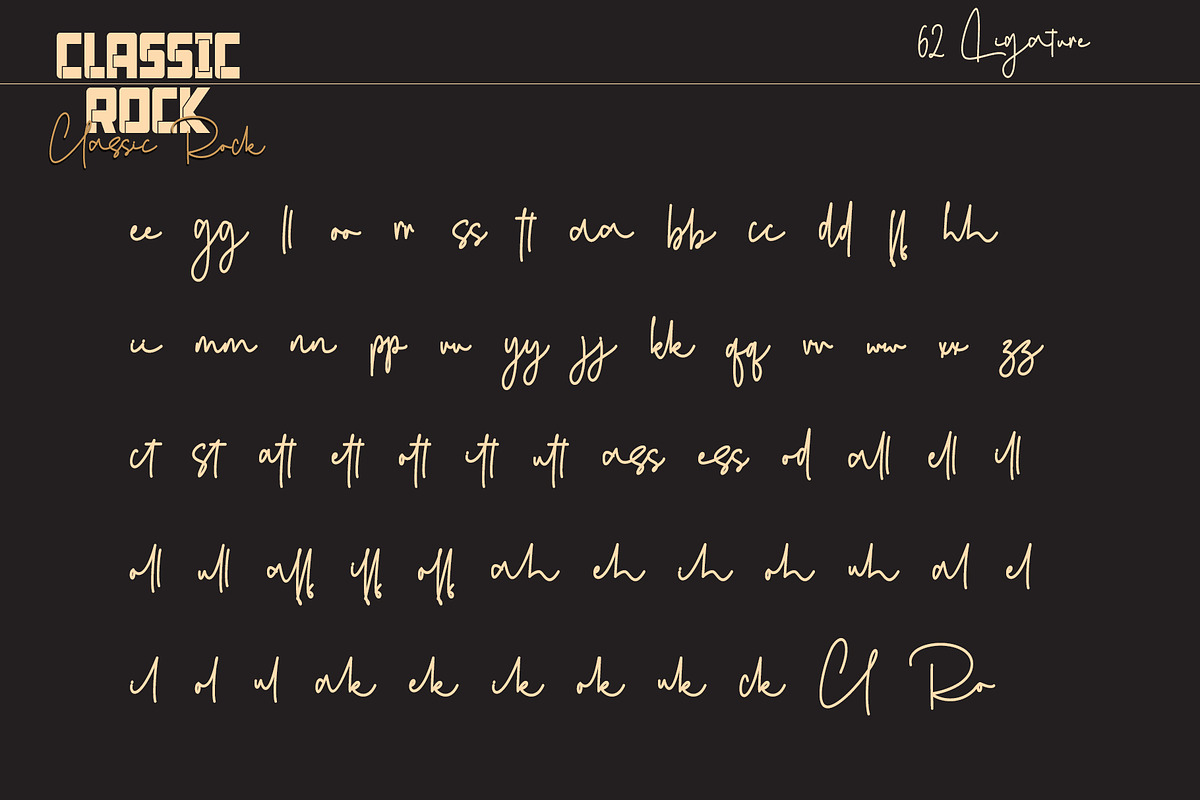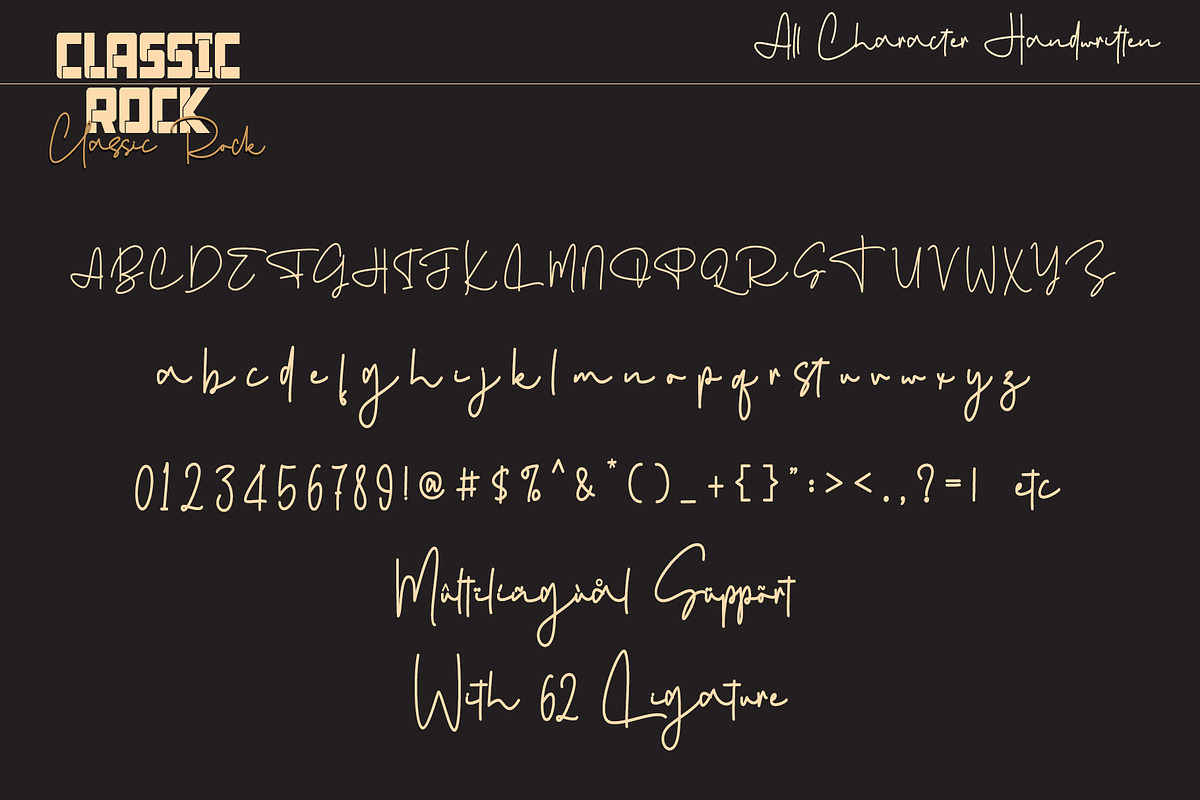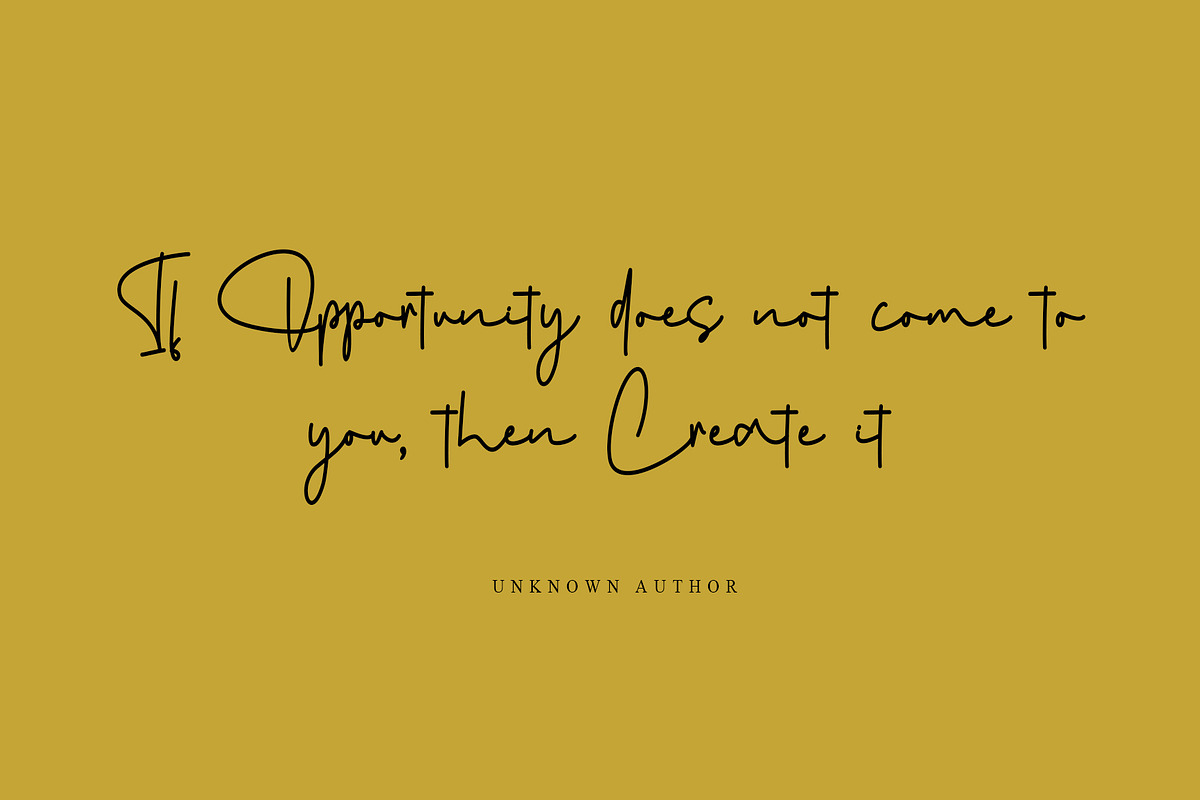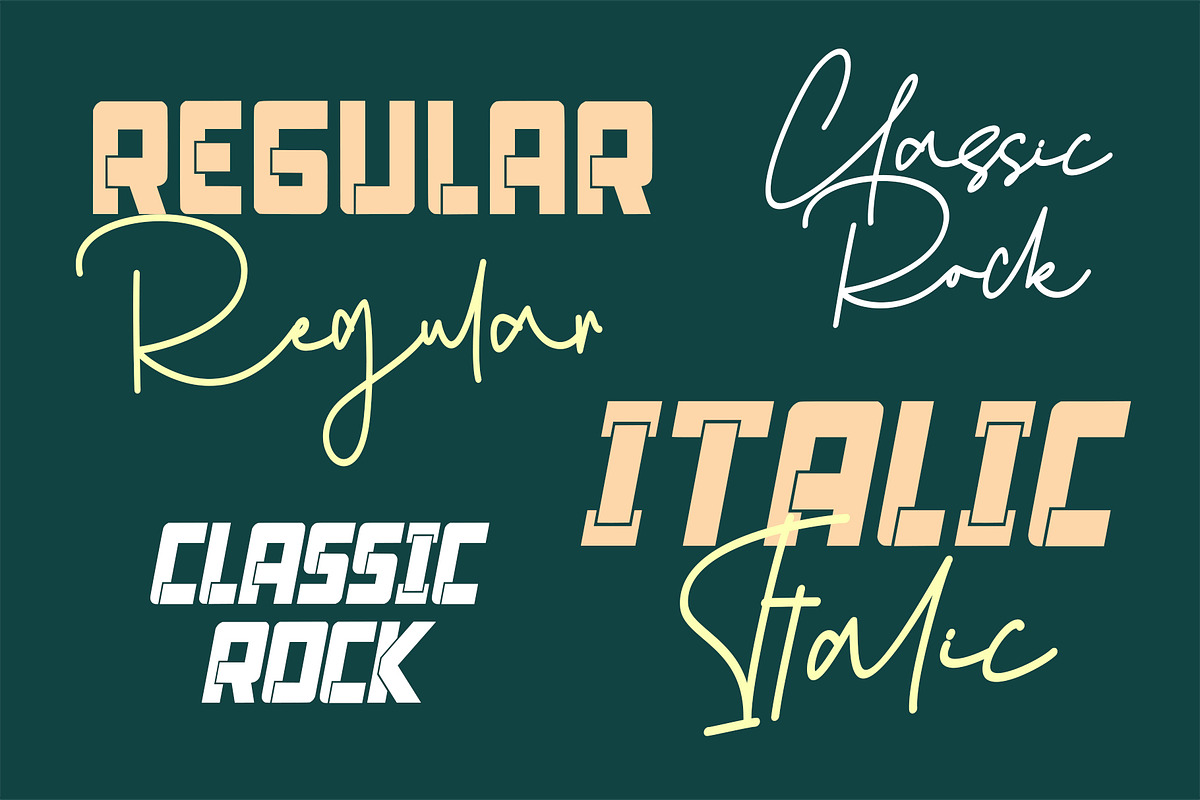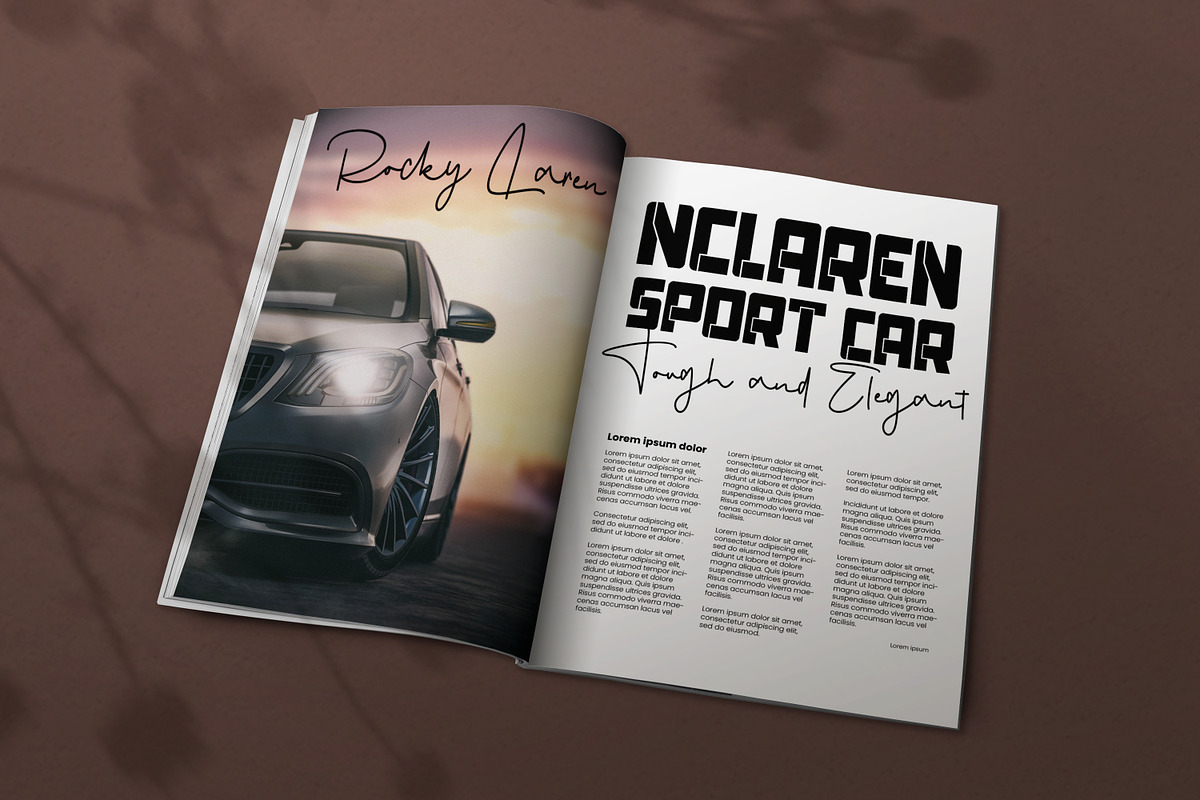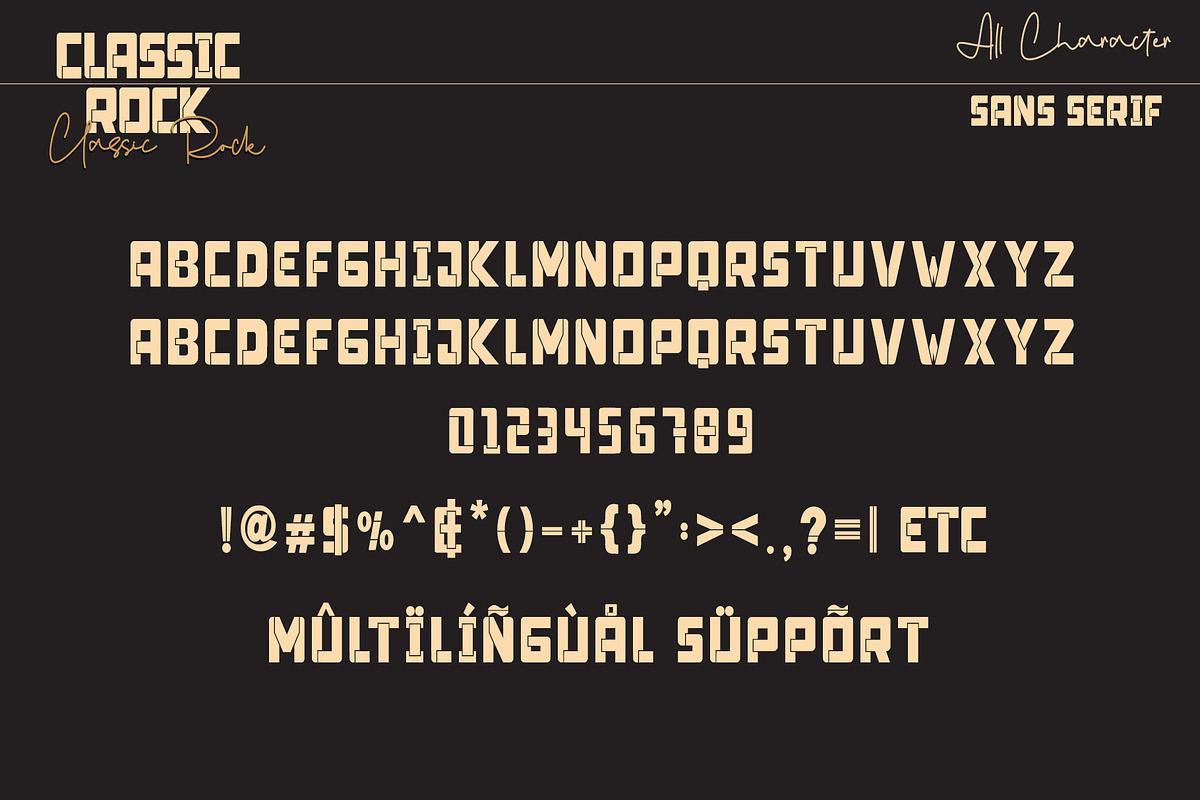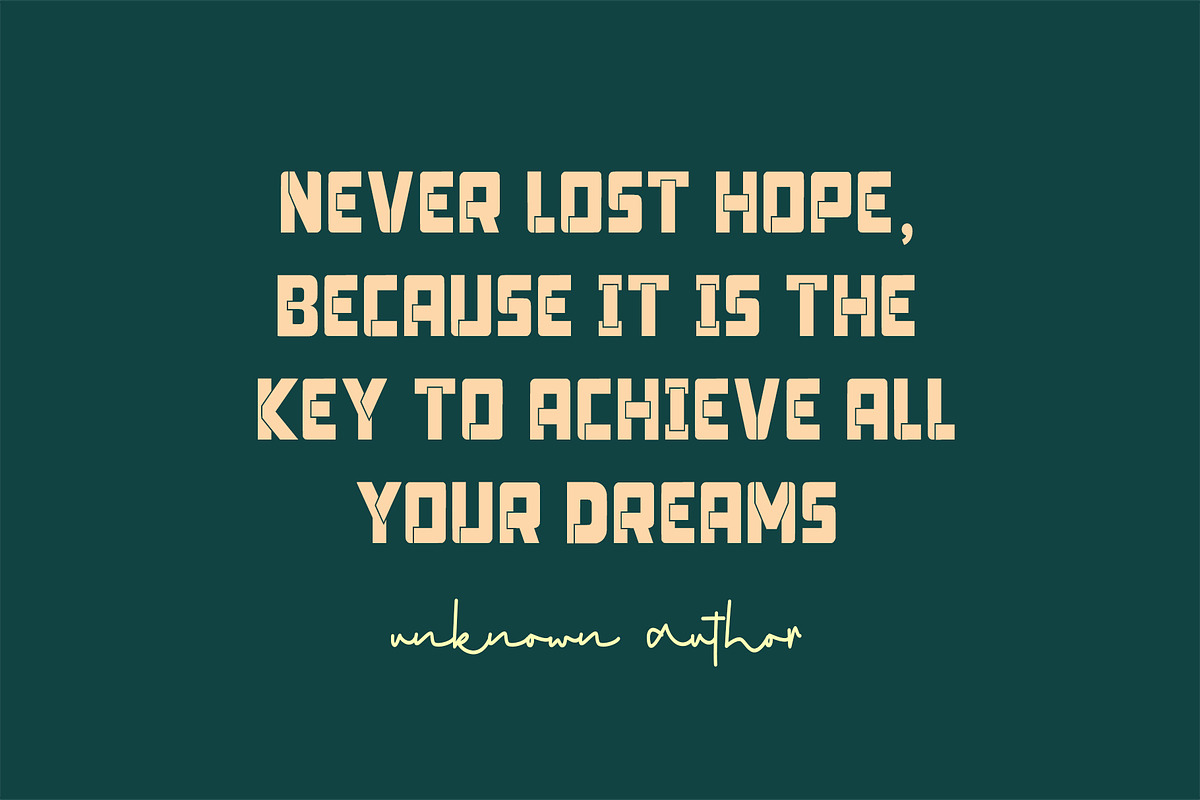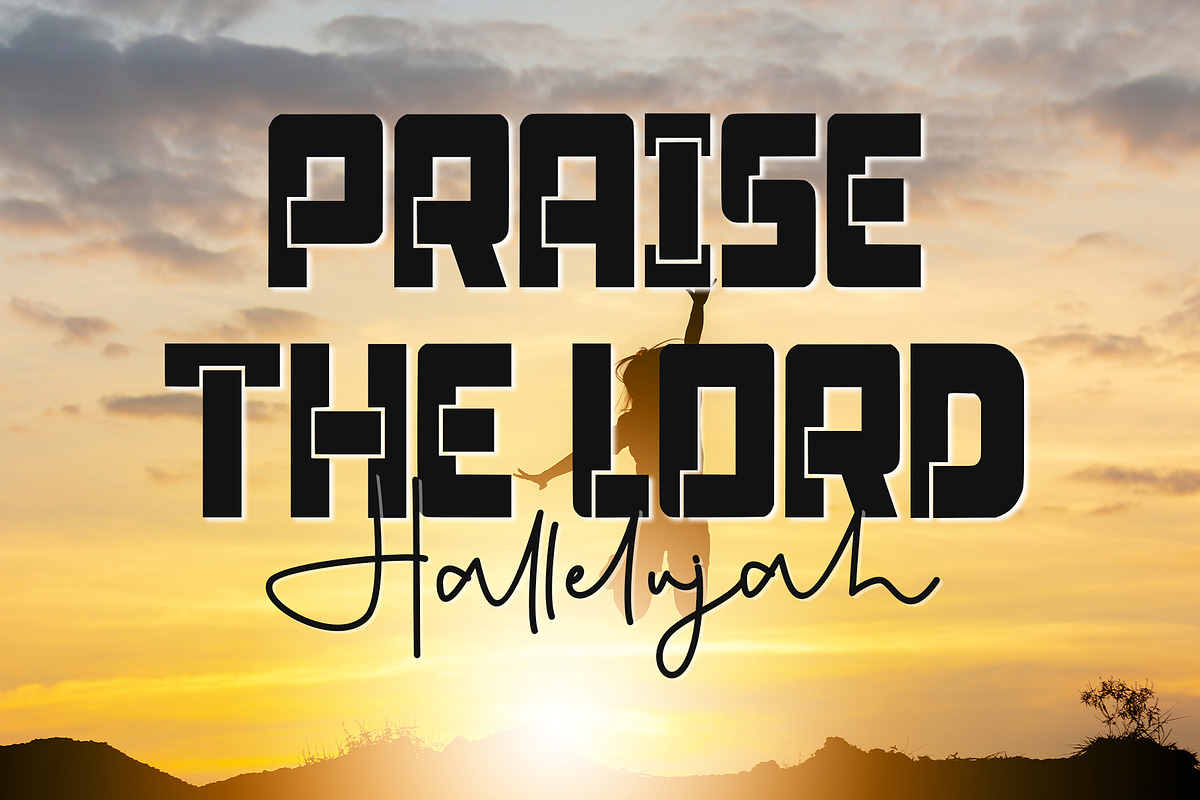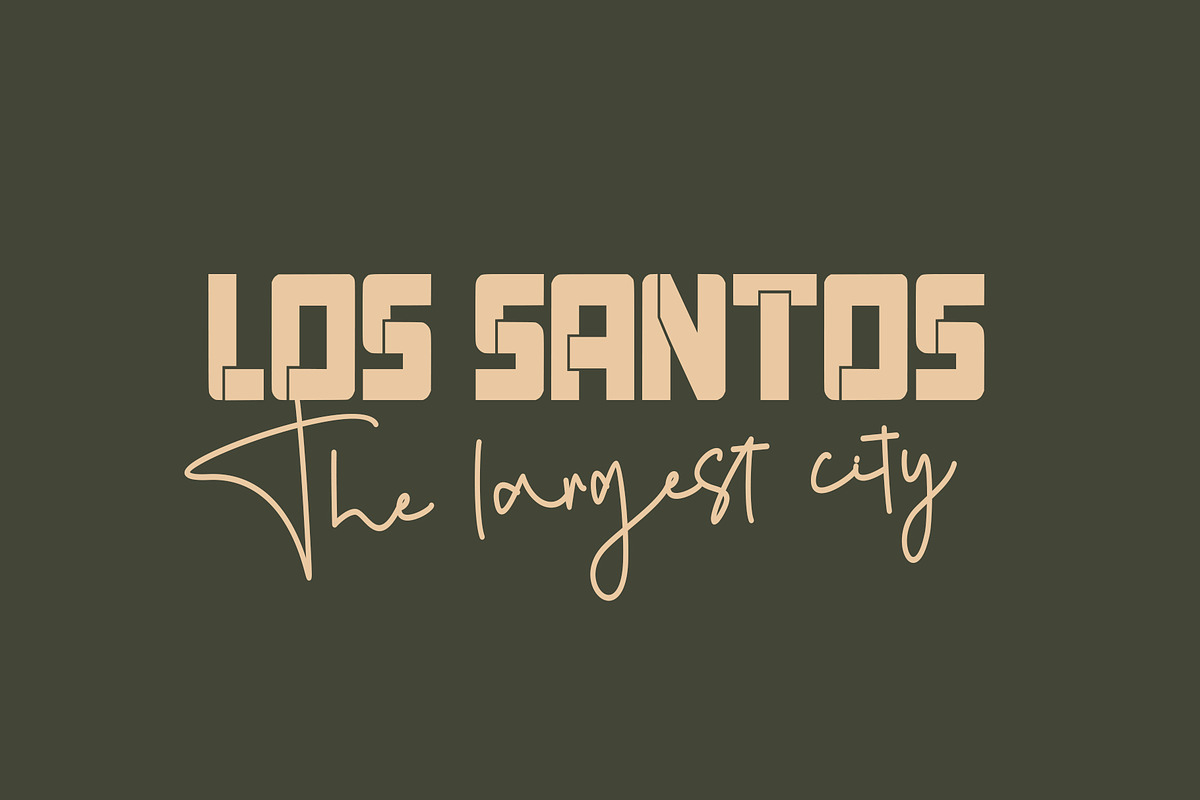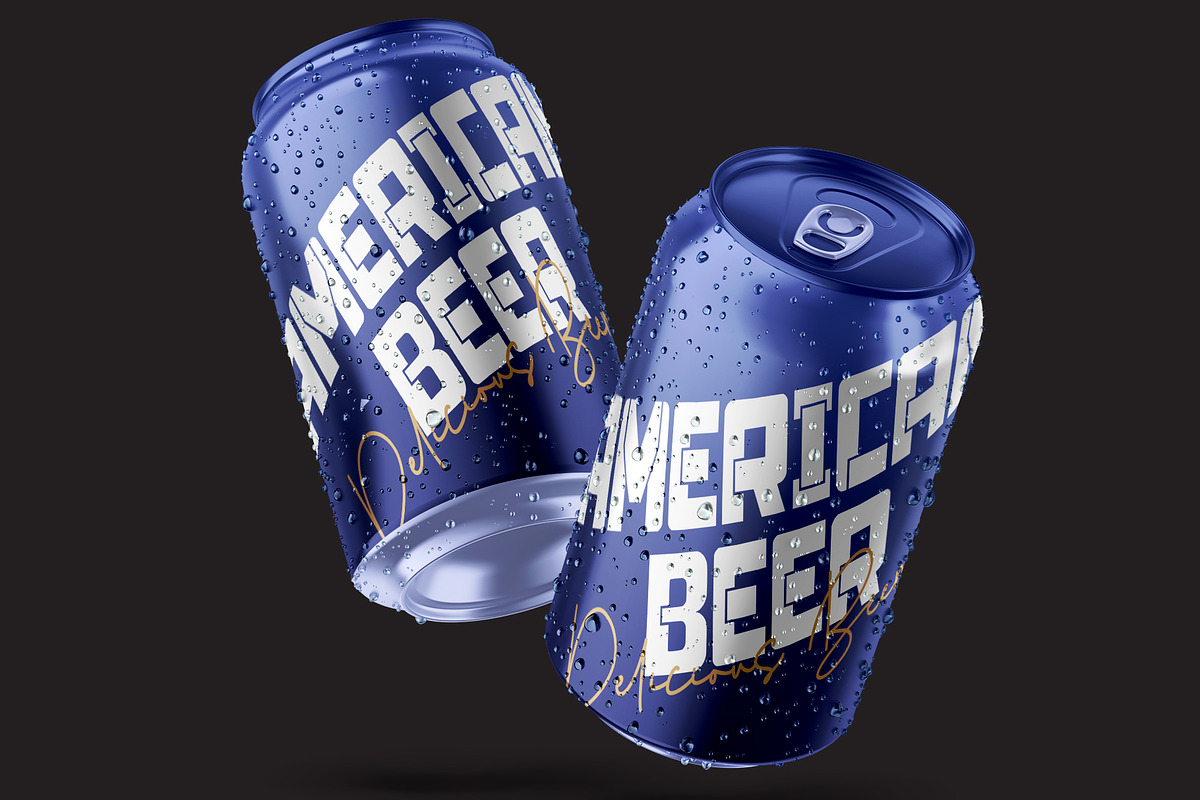
Classic Rock (FONT DUO)
Classic Rock is an incredibly versatile duo font. It perfectly combines a beautiful script with an elegant sans serif. The script was created to look as close to a natural handwritten script as possible by including 62 ligatures. With built-in Opentype features, this script comes to life as if you are writing it yourself. These styles are ready to be used together and give your designs a modern and unique look! This font is PUA encoded which means you can access all of the glyphs.
- Support multilingual; ä ö ü Ä Ö Ü ß ¿ ¡
- lowercase and uppercase letters
- 62 ligature